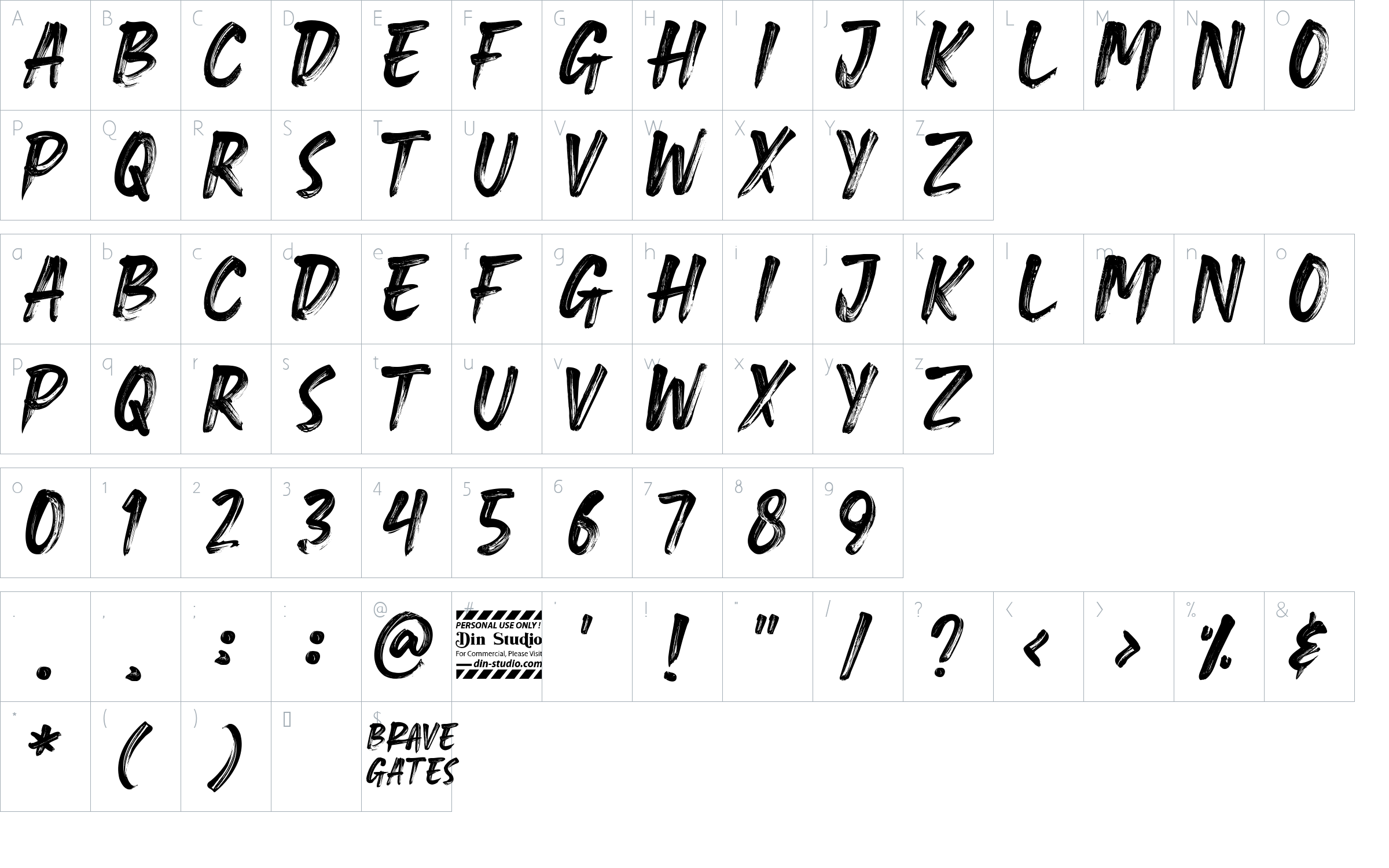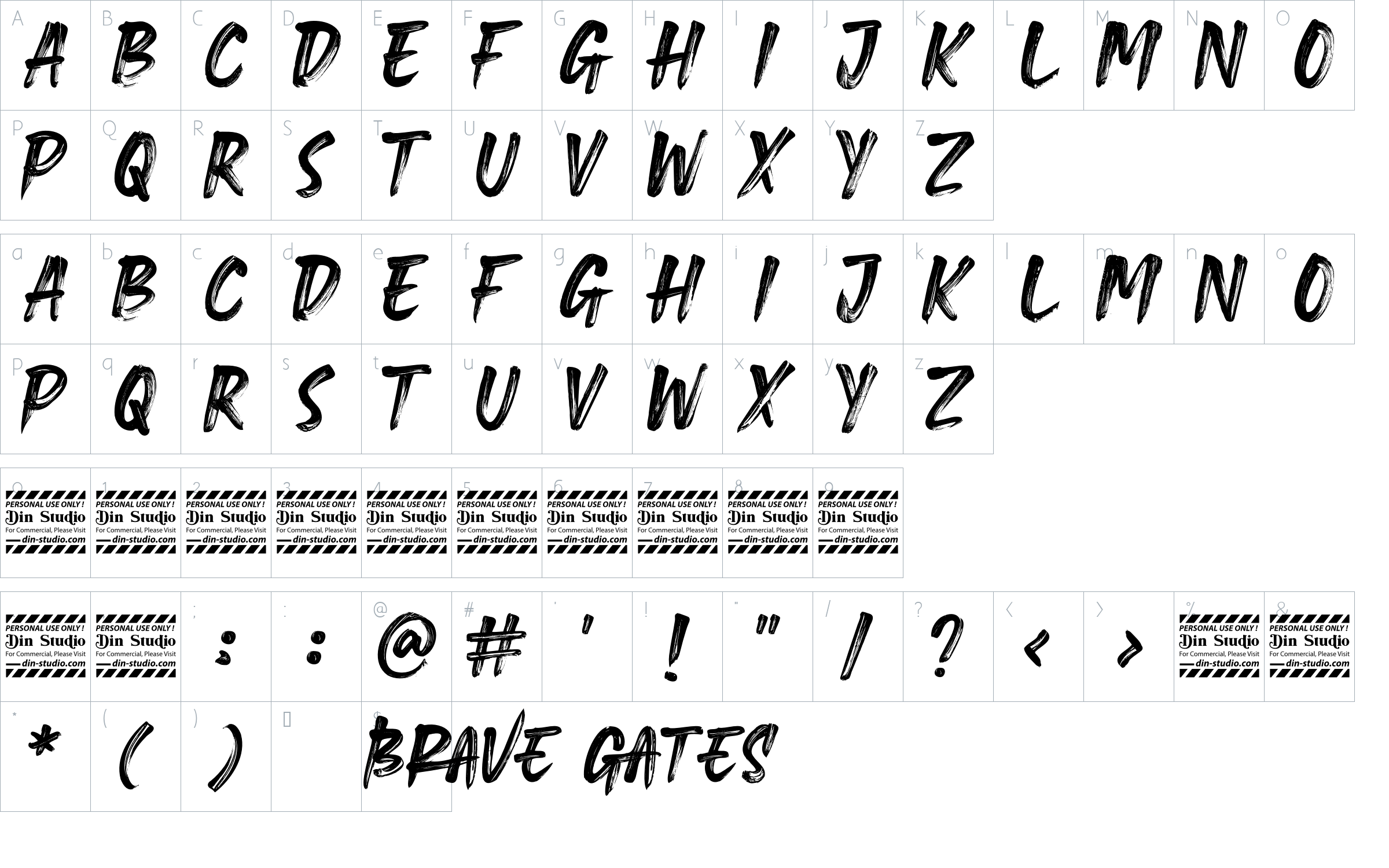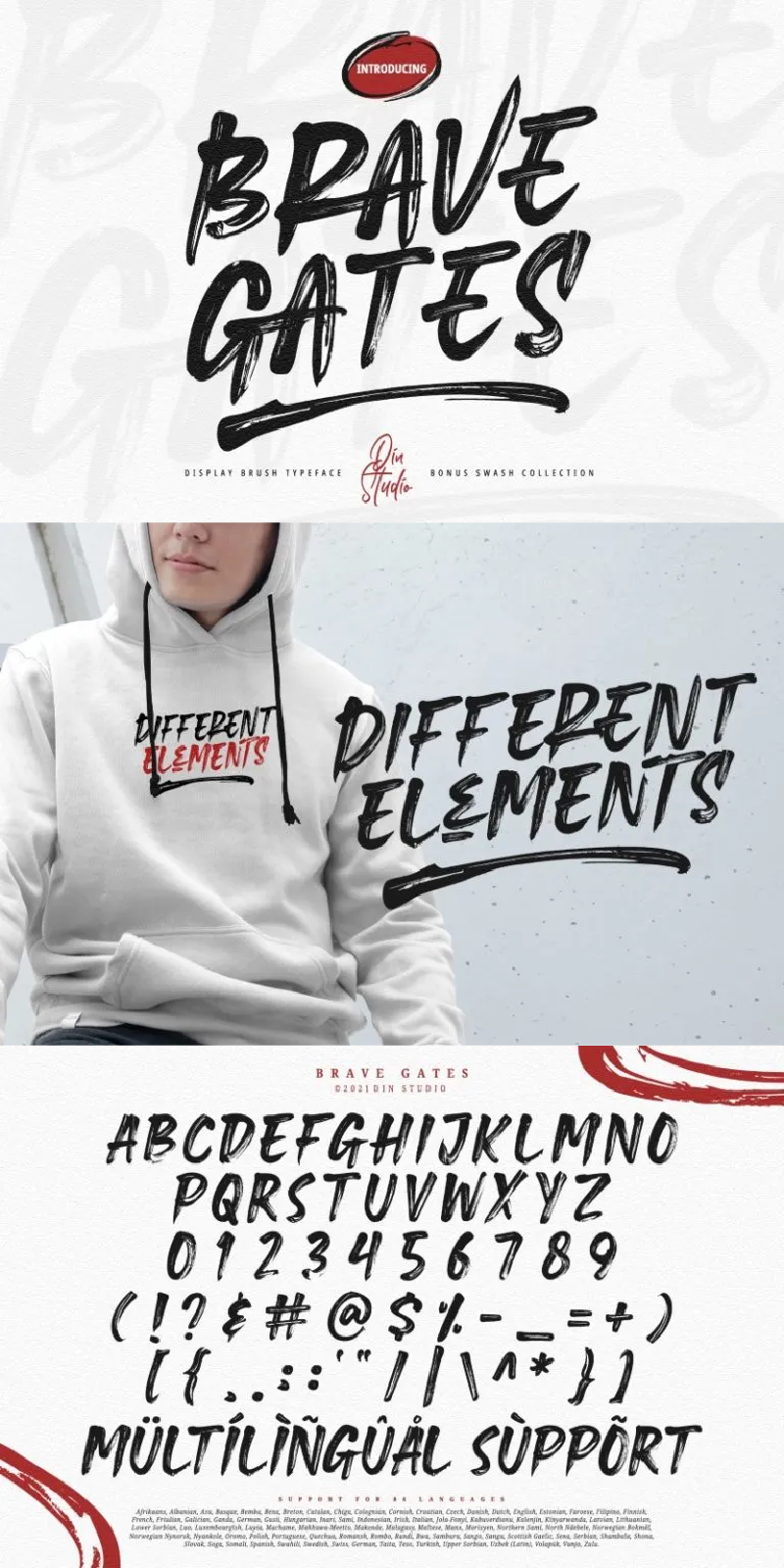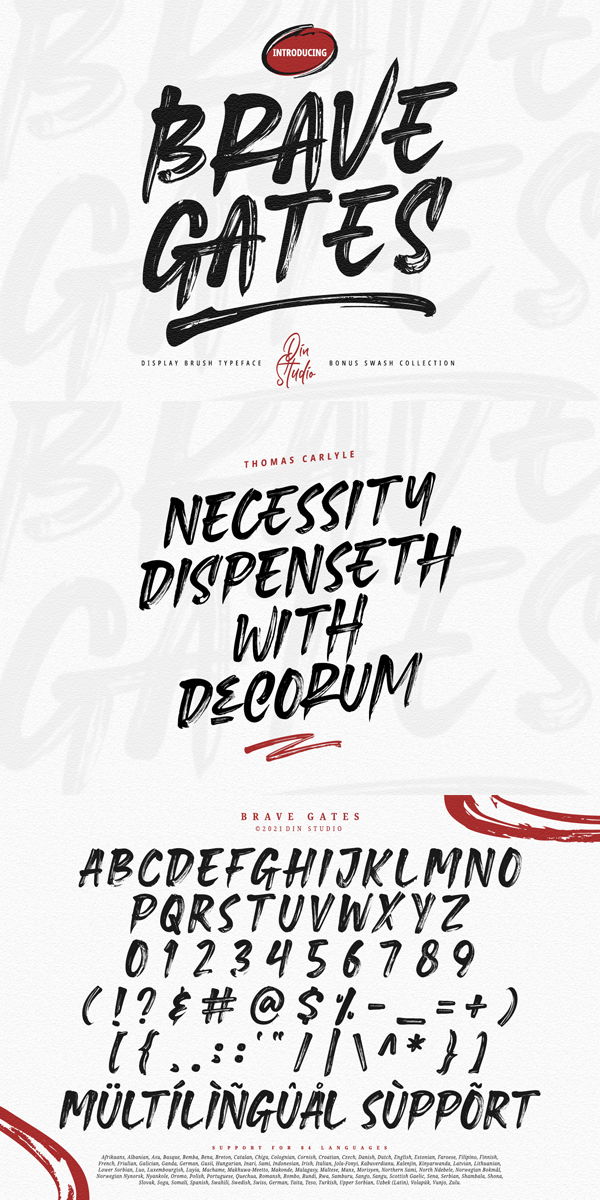
Brave Gates is a gorgeous uppercase display brush font, designed with the modern vibe. This bold brush font is perfect for anything indie, adventurous, and direct. Every swash, stroke, and curve was created to entice happiness and elegance. A real head-turner for your presentation, designs, website illustrations, and much more.
The font includes Multilingual Supports to make your branding reach a global audience. Inspire your audience, clients, or guests with this beautiful, statement font. See the previews above to get some inspiration on how you can use them.